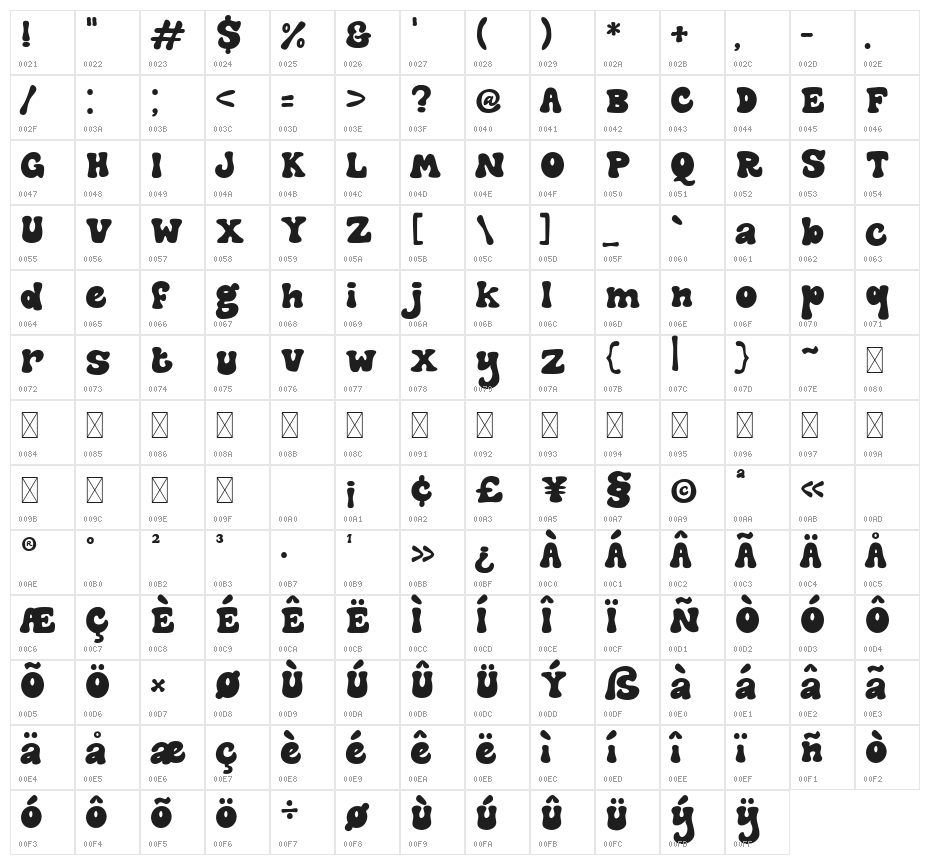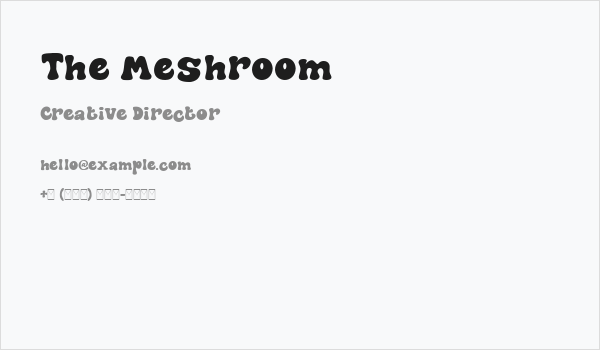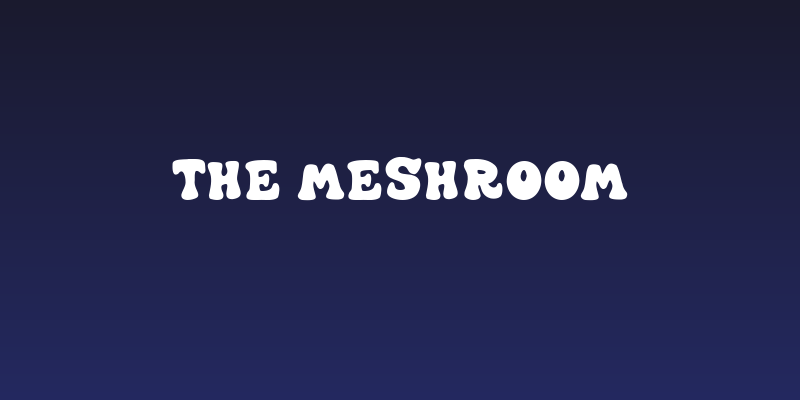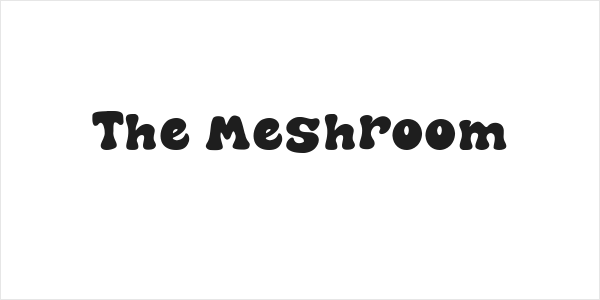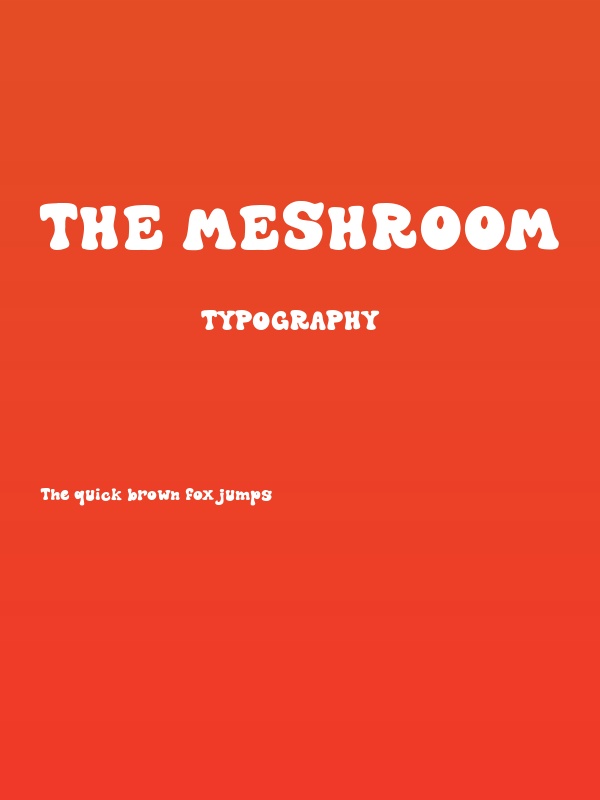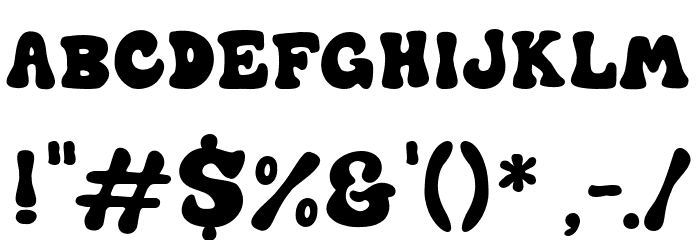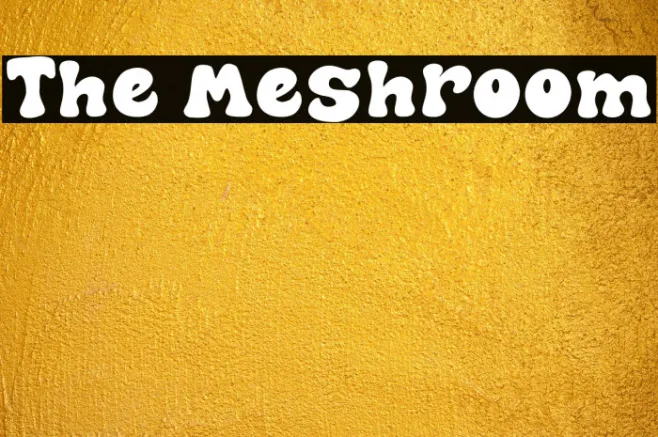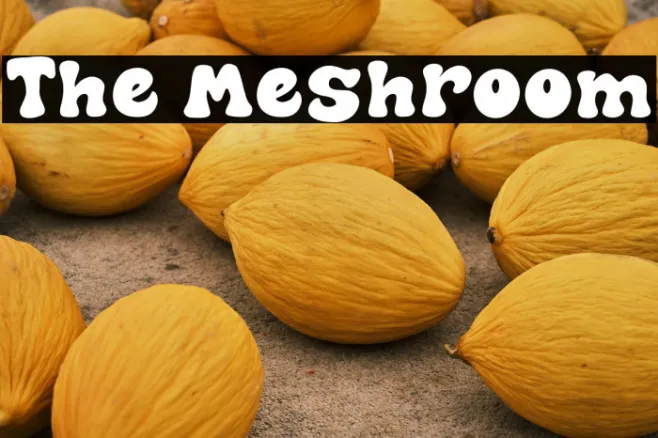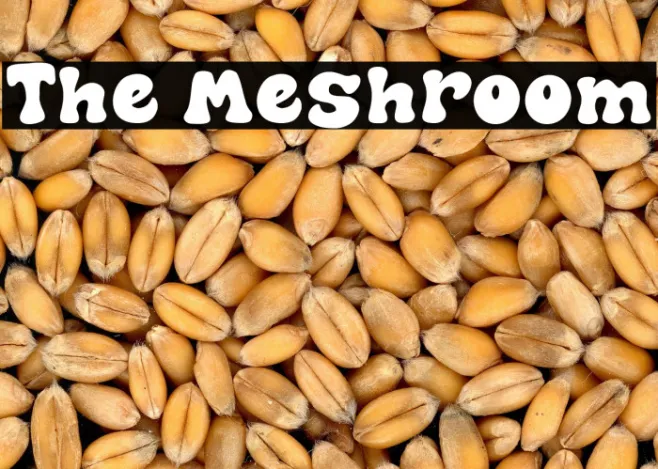
The Meshroom Font
The Meshroom Description
This font features a playful and bold design with rounded, bubbly characters that convey a sense of fun and whimsy. The letters have a consistent thickness, giving them a strong presence on the page. The uppercase and lowercase letters are well-balanced, maintaining a uniform style throughout. The numbers and special characters are crafted to match the playful aesthetic, making them suitable for creative and informal projects. The overall design is eye-catching and memorable, perfect for capturing attention in various contexts.
THE-MESHROOM UPPERCASE
THE-MESHROOM LOWERCASE
THE-MESHROOM OTHER CHARS
| Overall Style | Playful, Fun |
| Proposed Projects | Ideal for children's books, playful branding, party invitations, and creative posters. |